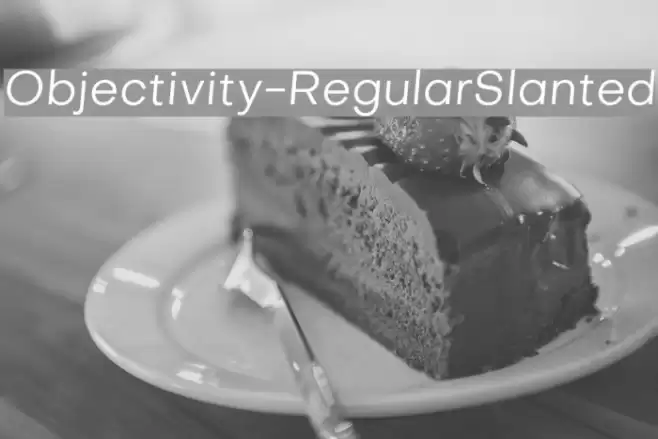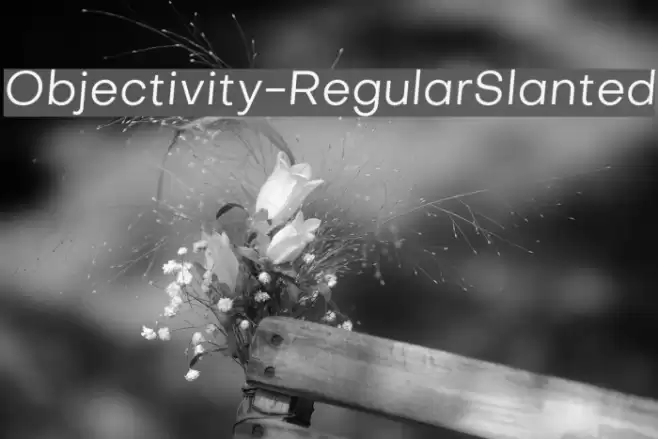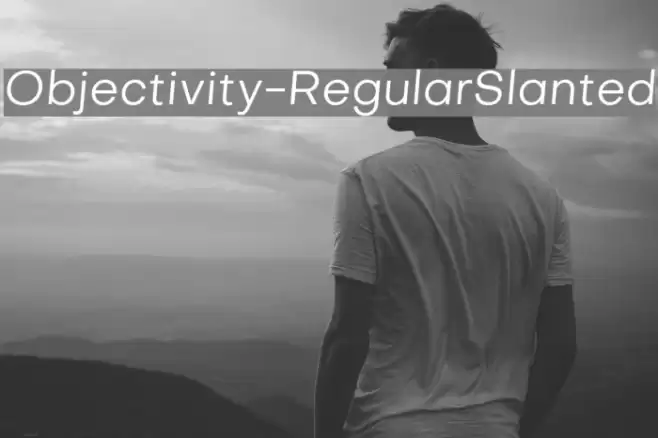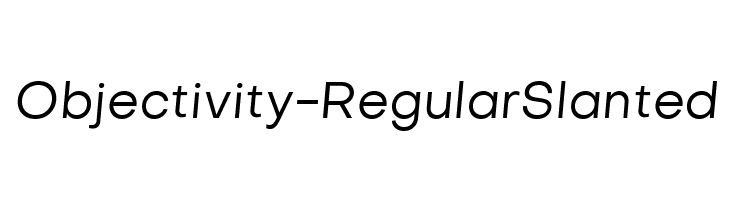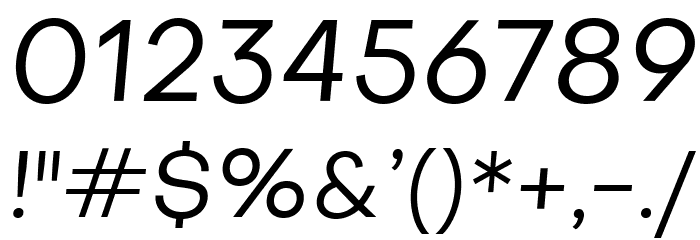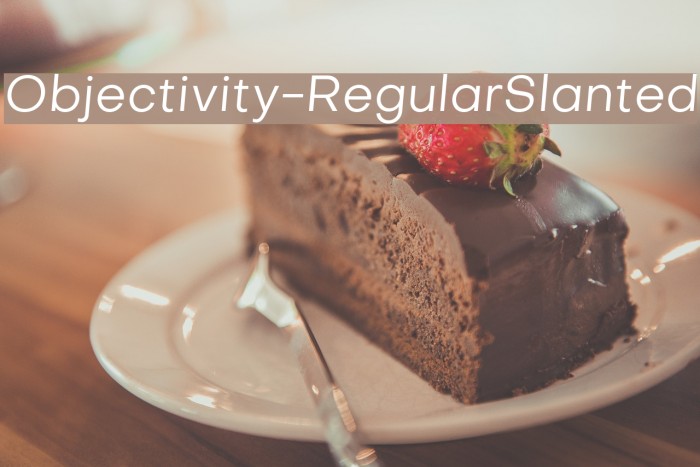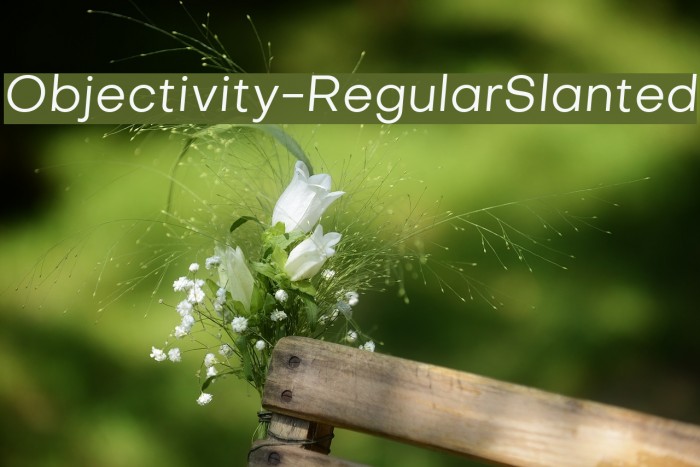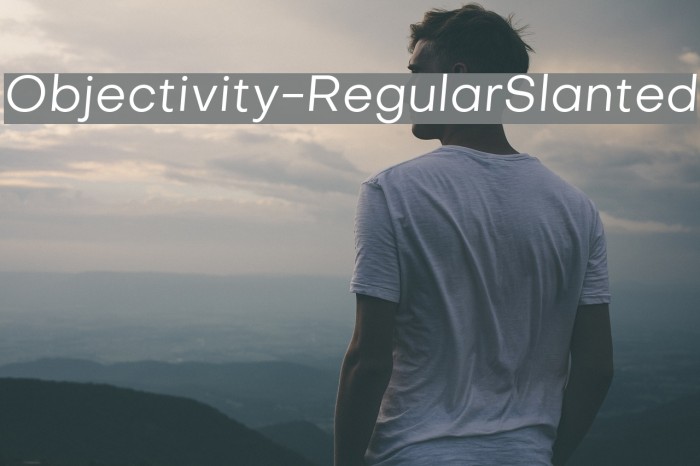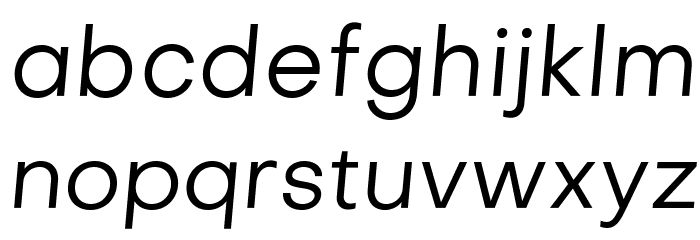
Objectivity-RegularSlanted Font
Objectivity-RegularSlanted Description
This typeface presents a clean and modern aesthetic with a slight slant, giving it a dynamic and forward-moving appearance. The characters are well-proportioned with a consistent stroke width, contributing to its readability and versatility. The uppercase and lowercase letters maintain a harmonious balance, while the numerals are clear and distinct. The special characters are designed to complement the overall style, ensuring a cohesive look across all text elements. This font's simplicity and elegance make it suitable for a wide range of applications.
A modern, slanted typeface with clean lines and excellent readability from Modern fonts.
- Proposed Projects: Ideal for branding, editorial design, advertising, and digital interfaces where a contemporary and professional look is desired.